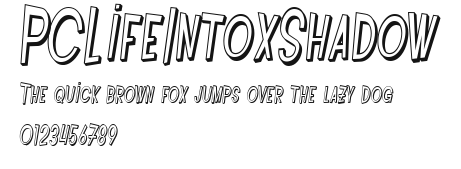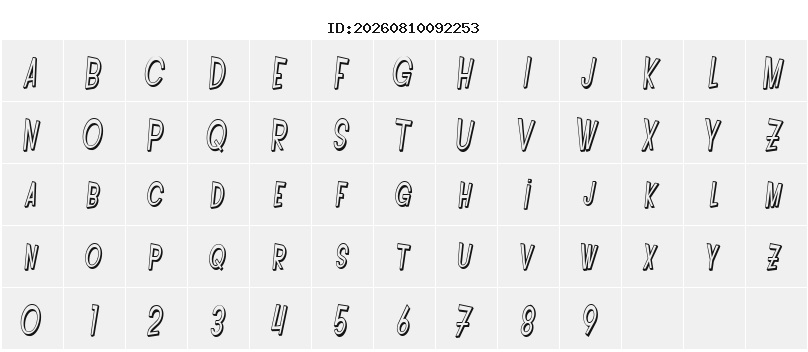
PCLifeIntoxShadow Preview
• Font Name: PCLifeIntoxShadow
• Font ID: Macromedia Fontographer 4.1 PCLifeIntoxShadow
• Full Font Name: PCLifeIntoxShadow
• Version: Macromedia Fontographer 4.1 30.11.2000
• PostScript Name: PCLifeIntoxShadow
• Character Count: 217
About PCLifeIntoxShadow.ttf
PCLifeIntoxShadow.ttf is a modern, elegant sans-serif font designed for ultimate readability and visual harmony. Perfect for branding, headlines, web design, and print materials.